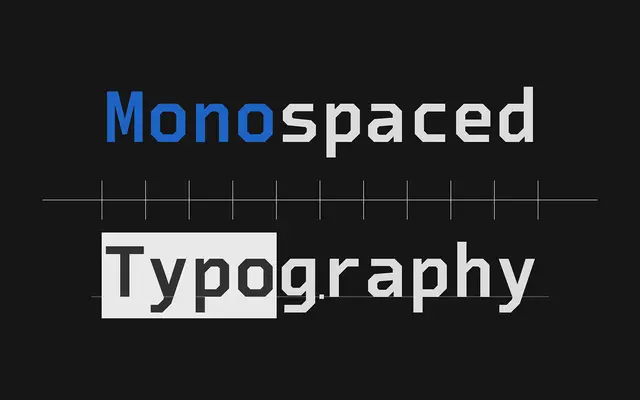
Debugger specimen from Dharma Type
A monospaced family with octagonal construction designed for coding and programming environments, with particular attention to disambiguating commonly confused characters.
Built around an octagonal and diagonal letterform construction that gives it a distinct sci-fi quality, it addresses the practical legibility demands of code editors by sharpening distinctions between zero and O, one and I, and two and Z. The italic styles are mechanically slanted rather than cursive, staying consistent with the upright roman structure to avoid disrupting reading flow in programming contexts. Latin-based language support makes it broadly applicable across international development and tech-forward design projects.
A monospaced family with octagonal and diagonal construction, designed explicitly for coding and programming contexts, with mechanically slanted rather than cursive italics.